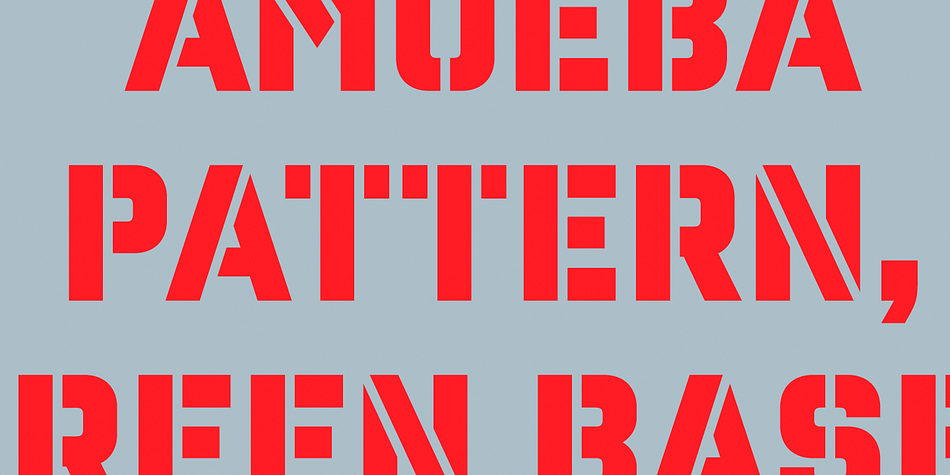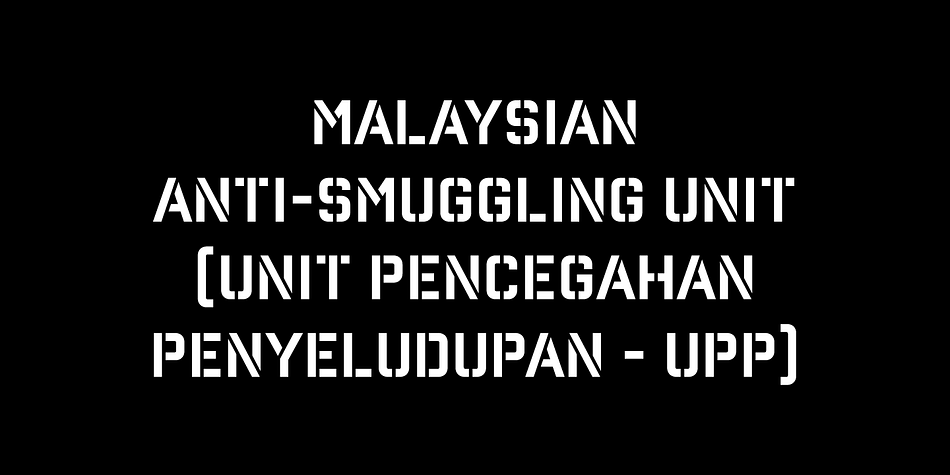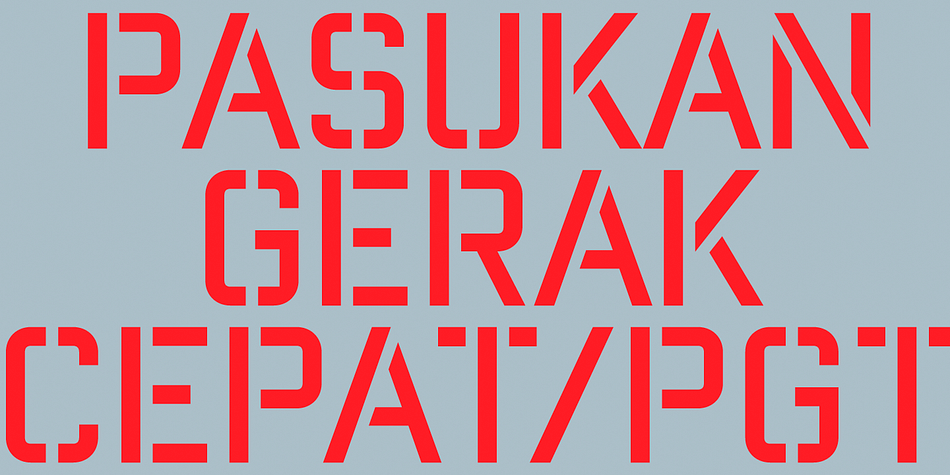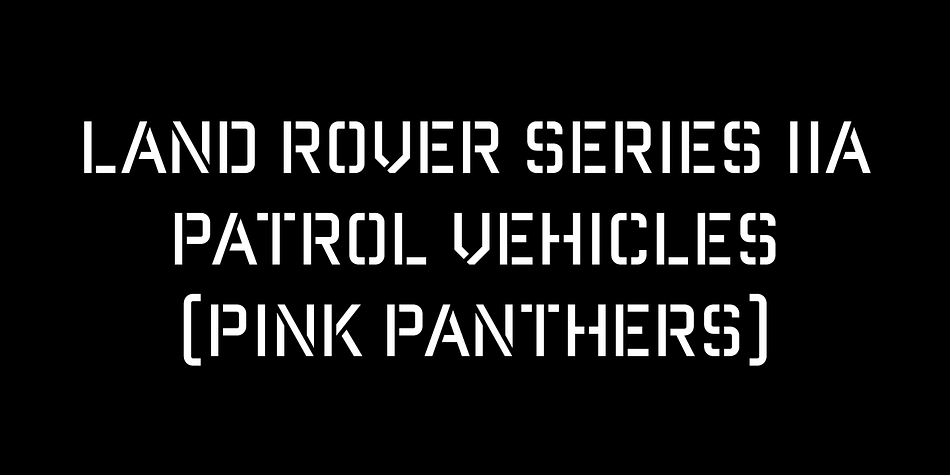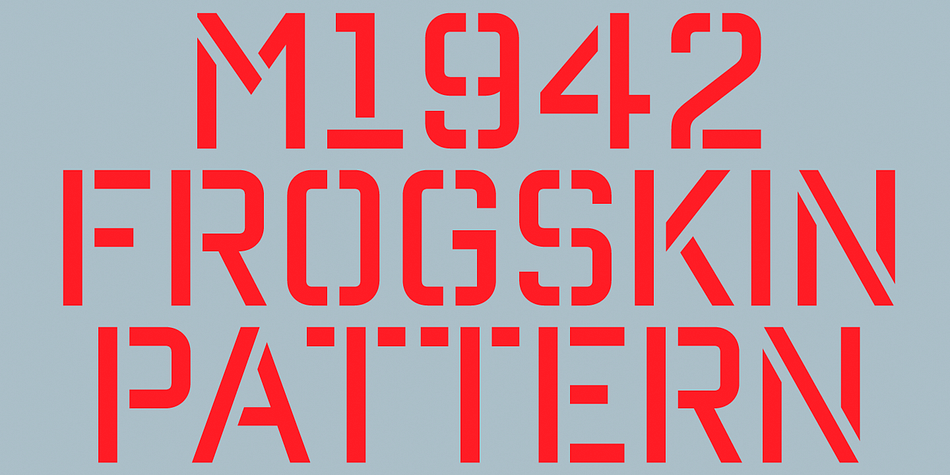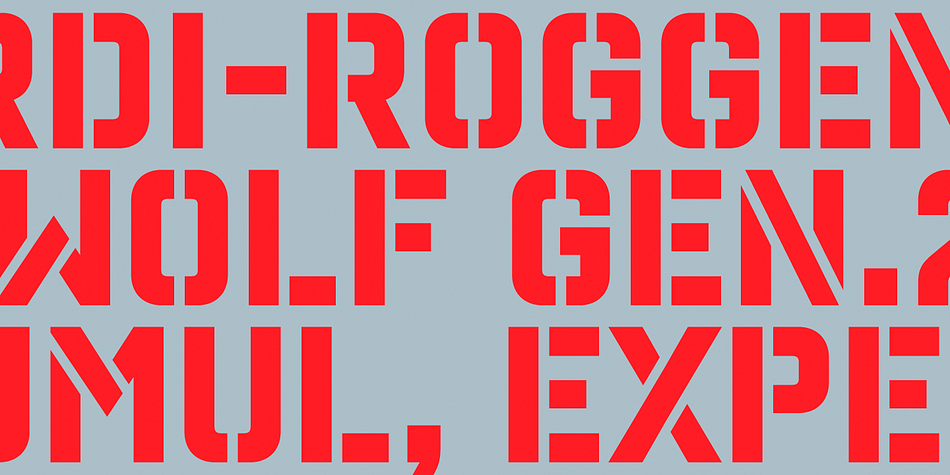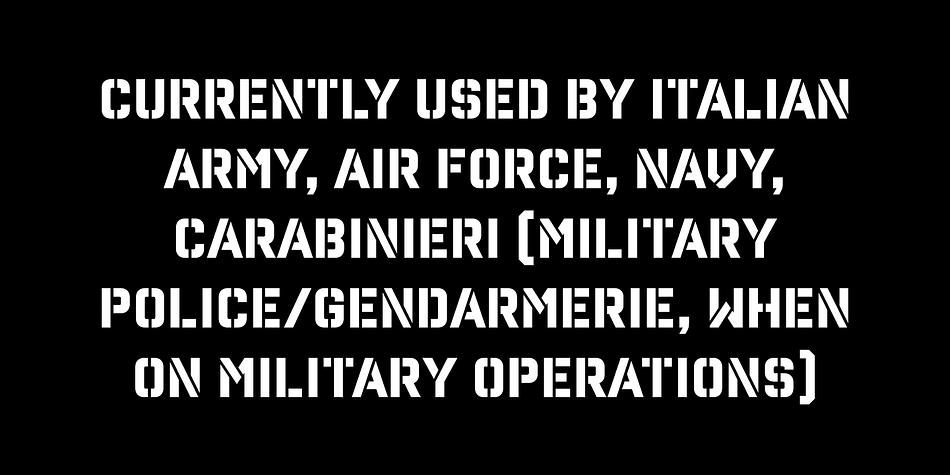
Reload Alt Stencil is a stencil and display sans font family. This typeface has four styles and was published by AE Type Inc.
Reload Alt Stencil is a rounded industrial geometric stencil typeface available in four flexible and distinct weights.
Features include:
Slashed zero
Romanian s accent language feature
Extended language support